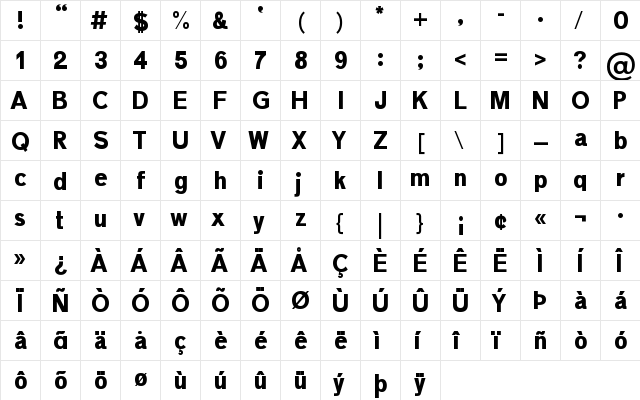
Maximum Impact Regular
Design Context for Maximum Impact Typeface
Maximum Impact brings high-energy athletic personality to the page — its confident, muscular forms are built for impact.
Built for sports team identities, athletic apparel, event posters, and high-energy promotional material.
Font Pairing: Use alongside a condensed or geometric sans for supporting copy — keep the pairing bold, functional, and free of ornament.
Pro Tip: Maximum Impact thrives on contrast — try it large, bold, and tight against a clean background for maximum visual impact.